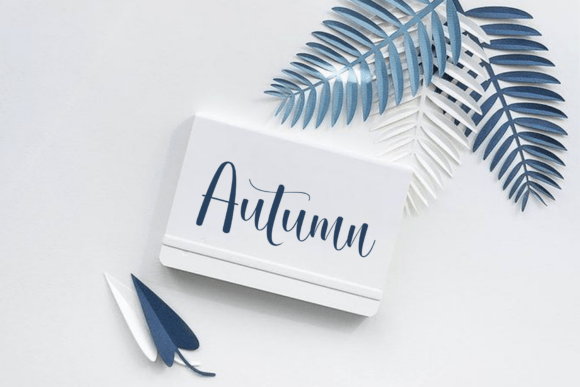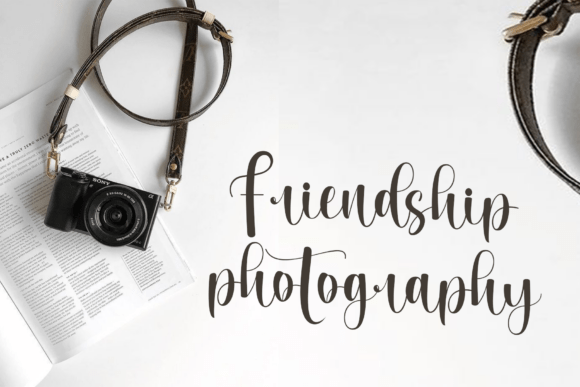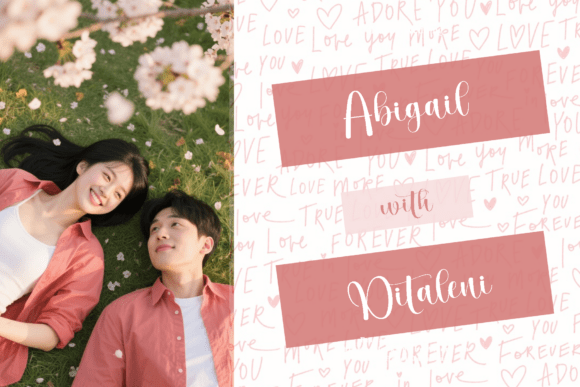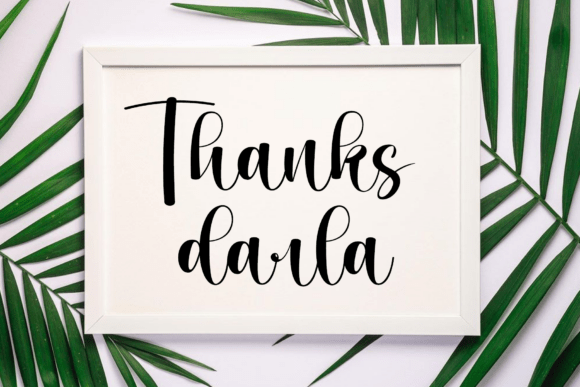
Introduction to Freaky Winter Font
Freaky Winter is a graceful, modern, and stylized handwritten script font.
It features smooth, fluid strokes and lovely ornamental curves, giving it a feminine, professional, and slightly romantic touch The consistent weight and clean connections ensure excellent legibility.
Key Features of Freaky Winter Font